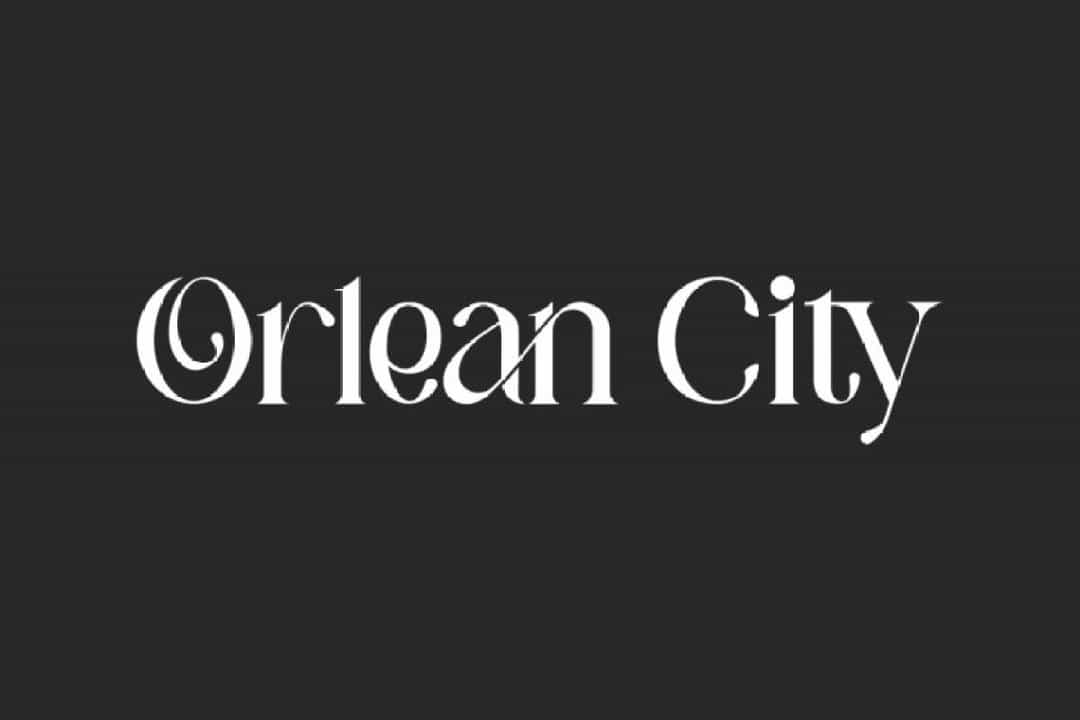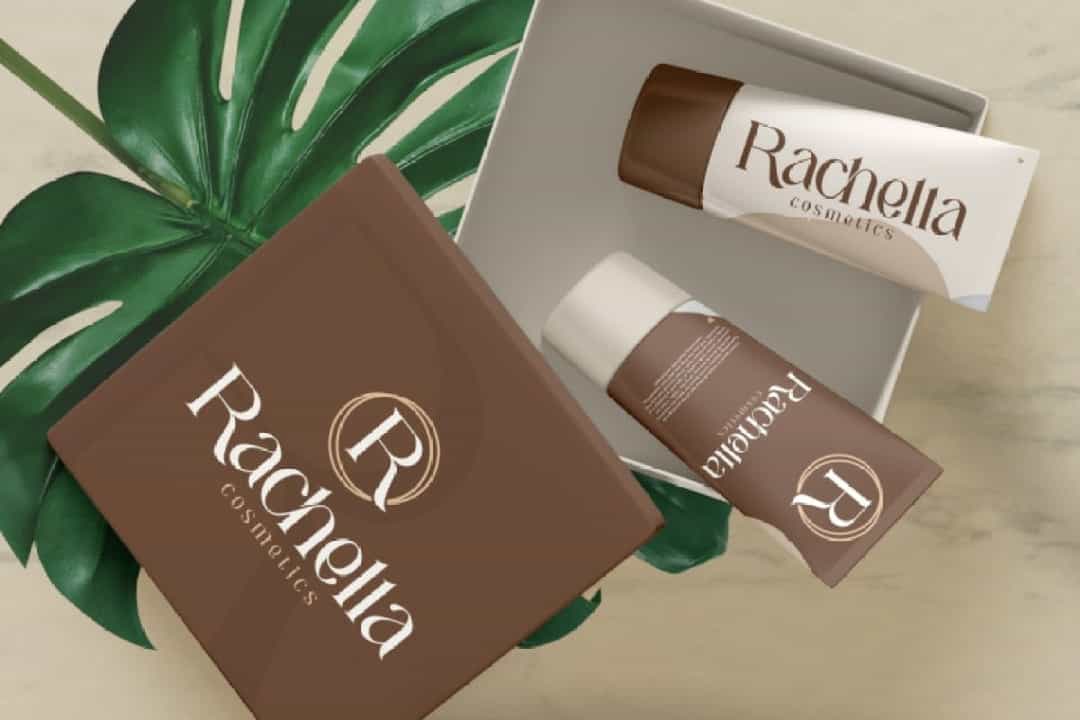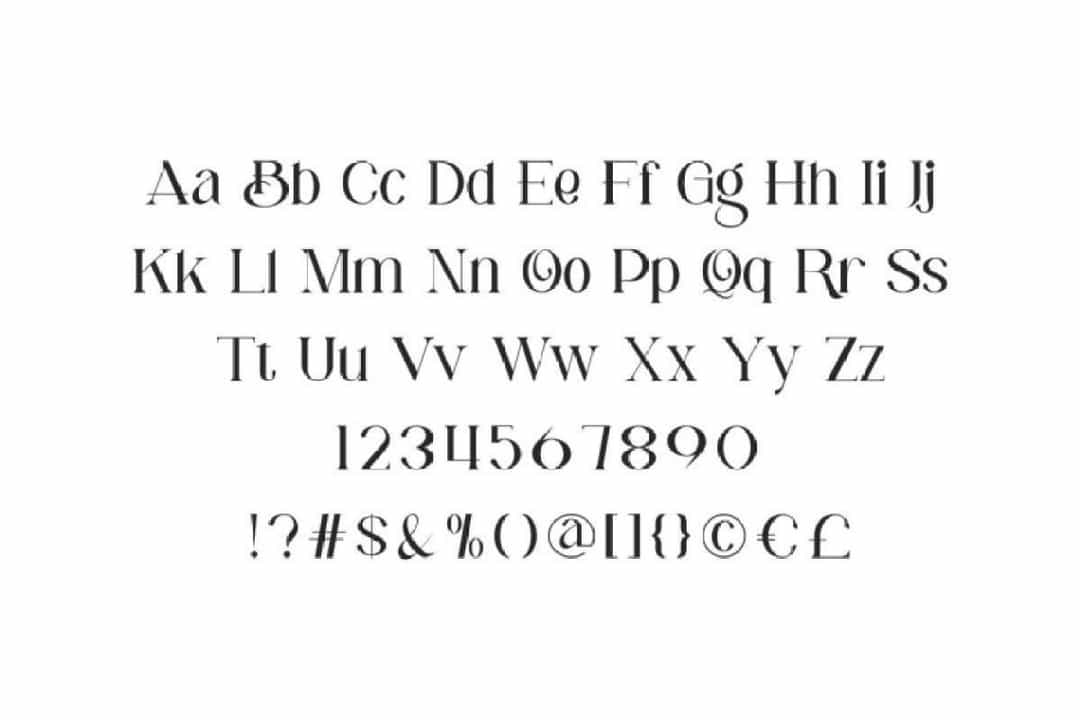
Orlean City Font is an elegant serif display font created by Vintype Studio that will add endless elegance and a distinctive style to any project you work on. This font can be utilized across many fields such as clothing, cosmetics artist design, custom printed publications, publishing spa services hotels etc – the list goes on!